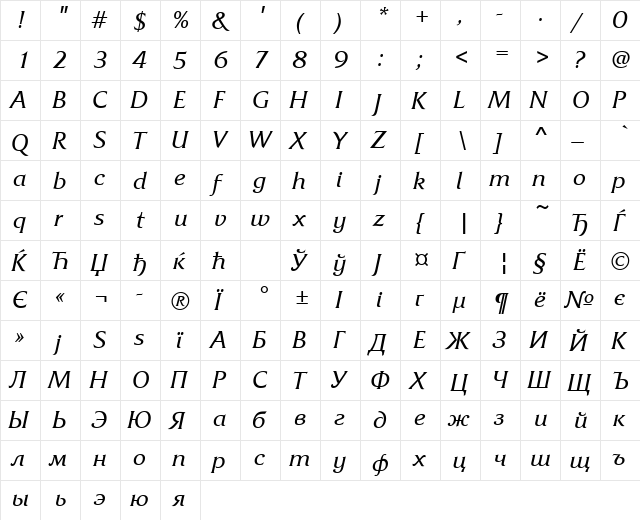
FrizQuadrataCTT Italic Font Preview
FrizQuadrataCTT Italic
Design Context for FrizQuadrataCTT Typeface
FrizQuadrataCTT is a composed and adaptable typeface that performs quietly and consistently across a wide range of design contexts. Its italic angle brings a sense of urgency and motion to the letterforms.